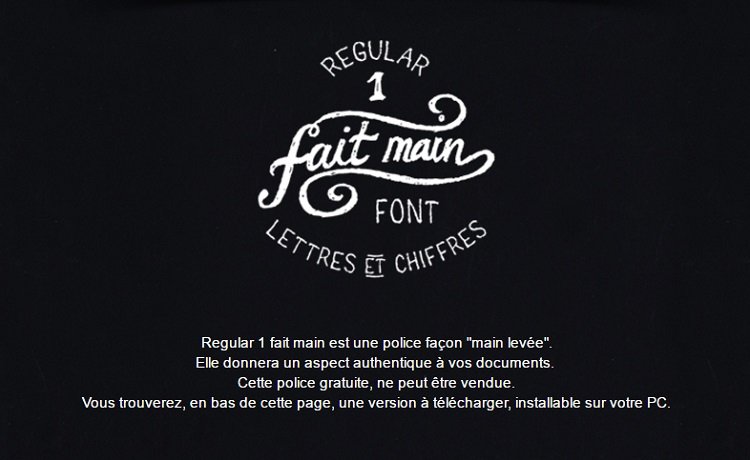
Fait Main Font
This is the FREE Fait Main Font by Ju Dzign which is a handwritten font that has a great looking style. It can work in a variety of different styles from badges to clothing labels. For more of Ju Dzign please visit: http://www.judzign.com